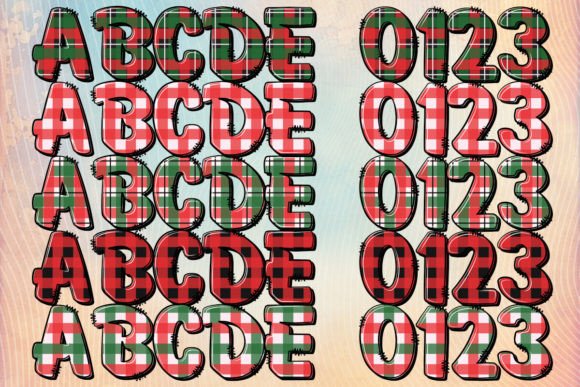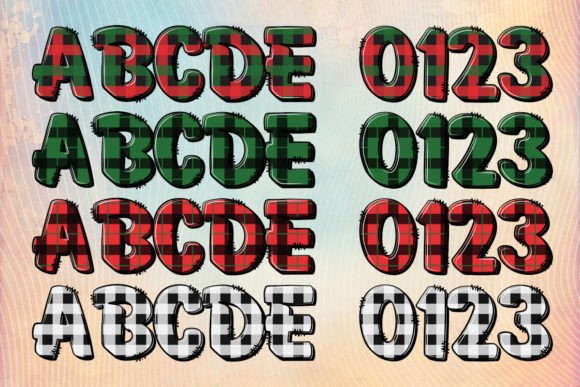
Get Ready to Unleash Your Holiday Cheer with Christmas Font
As you sit down to plan your holiday cards, gift tags, and decorations, do you ever feel like something is missing? A spark of creativity that will make your designs truly special? That’s where Christmas Font comes in – a beautiful, festive typeface that captures the essence of the holiday season.
This enchanting font, inspired by classic holiday textiles, is more than just a design element – it’s a way to express your love and appreciation for family and friends. With 9 styles to choose from, you’ll be able to create heartwarming messages, season’s greetings, and stocking stuffer tags that will be treasured for years to come. Whether you’re a seasoned designer or a DIY enthusiast, Christmas Font is the perfect tool to add a touch of magic to your holiday creations.
Key Features of Christmas Font
- Font Styles: Christmas Font comes in 5 unique styles, including Regular, Italic, Bold, Bold Italic, and Outline, to add variety to your designs.
- Character Set: The font includes a wide range of characters, including uppercase and lowercase letters, numbers, punctuation marks, and special characters, making it suitable for various design applications.
- Unique Characteristics: Christmas Font features a distinctive, festive design with bold lines and ornaments, making it perfect for holiday-themed designs, cards, and decorations.
Designer Review: Christmas Font
Overall, I’d say the Christmas Font is a decent choice for holiday-themed projects, but it has its limitations. Let’s break it down.
- The font’s bold and playful design makes it perfect for headlines and titles.
- The use of bright, festive colors is on point and adds to the overall holiday feel.
- The font’s boldness can sometimes make it difficult to read, especially in smaller sizes.
- The design may be a bit too over-the-top for more subdued holiday projects.
- The font’s versatility is limited to holiday-themed projects, making it less useful for general design work.
In conclusion, while the Christmas Font has its strengths, its limitations hold it back from being a truly versatile design tool. It’s a great choice for holiday-themed projects, but it may not be the best fit for more general design work.
Tips for Getting the Most Out of Christmas Font
Use Christmas Font to add a festive touch to your designs. Experiment with different font combinations and styles to create a unique look. Consider using Christmas Font in conjunction with other holiday-themed elements, such as snowflakes or holly, to create a cohesive design.
Christmas Font is perfect for:
– Holiday greeting cards
– Gift tags
– Social media posts
– Party invitations
– Marketing materials
Alternatives to “Christmas Font” for Designers
1. Curlz
Curlz is a playful, cursive font often used for festive and whimsical designs. It’s ideal for projects that require a touch of nostalgia and charm. Unlike Christmas Font, Curlz is more versatile and can be used for various themes beyond Christmas.
Comparison: While both fonts are cursive and festive, Curlz has a more fluid and organic feel, whereas Christmas Font is more rigid and traditional.
Great Vibes is a modern, elegant script font that can add a sophisticated touch to your designs. It’s suitable for projects that require a balance of festivity and refinement. Unlike Christmas Font, Great Vibes is more versatile and can be used for a wide range of themes and occasions.
Comparison: While both fonts are script fonts, Great Vibes has a more refined and sophisticated feel, whereas Christmas Font is more playful and traditional.